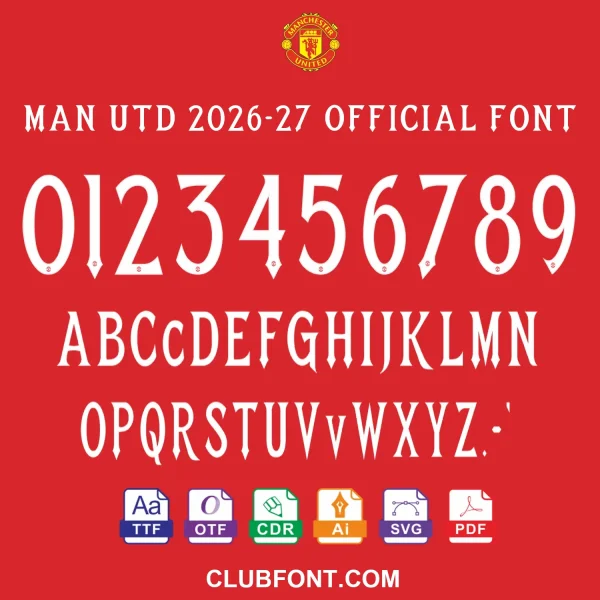
MAN UTD 2026-27 Official Font Download
✅ Clean vector outlines
✅ Club-authentic lettering style
Download the Official Manchester United 2026-27 Kit Font
If you are looking to replicate the exact look of the Red Devils’ new strip, you need the Manchester United 2026-27 kit font. This premium typeface is the definitive digital version of the lettering seen on Premier League match shirts for the upcoming season.
Perfect for Fan Projects & Designers
Whether you are creating custom jerseys, updating squads in EA Sports FC, or designing tributes, this Manchester United 2026-27 kit font ensures 100% accuracy. The vector outlines are crisp at any size.
Official Club Context
Unlike standard sports fonts, this specific Manchester United 2026-27 kit font matches the curvature and spacing approved by the club, making it the best choice for authentic fan edits.